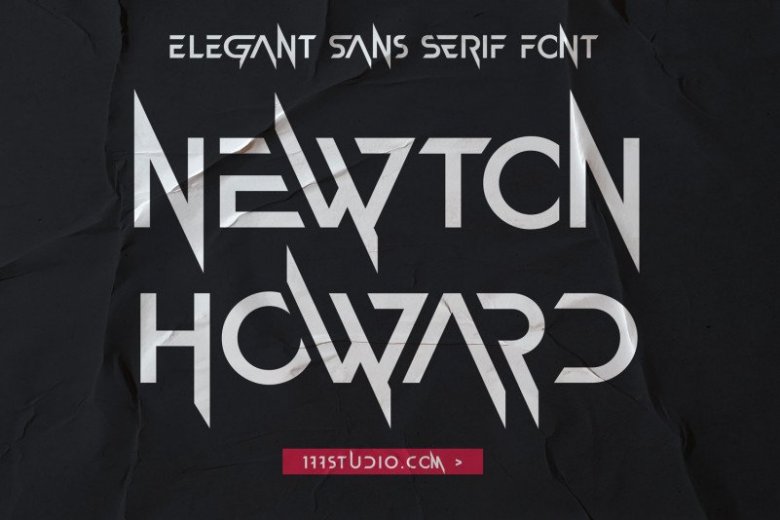
Newton Howard Font
Newton Howard Font a modern futuristic font, this is a font with a futuristic edge, geometric corners, perfect for technology theme. Newton Howard Font comes with a range of OpenType features and it’s works perfect for any graphic design challenge: webdesign, packaging, logo design, etc.